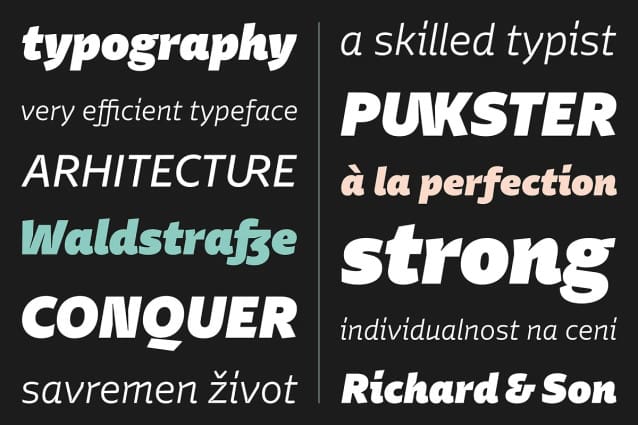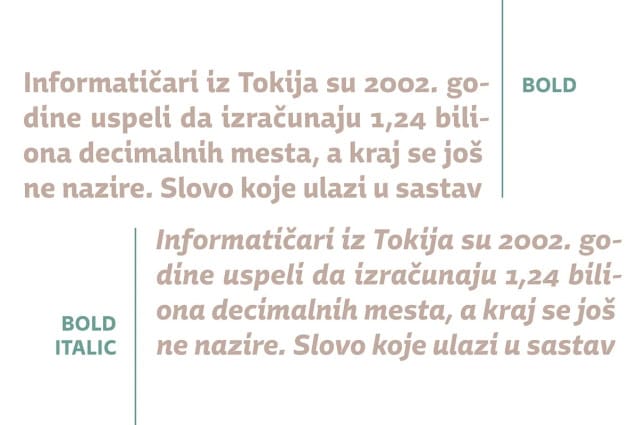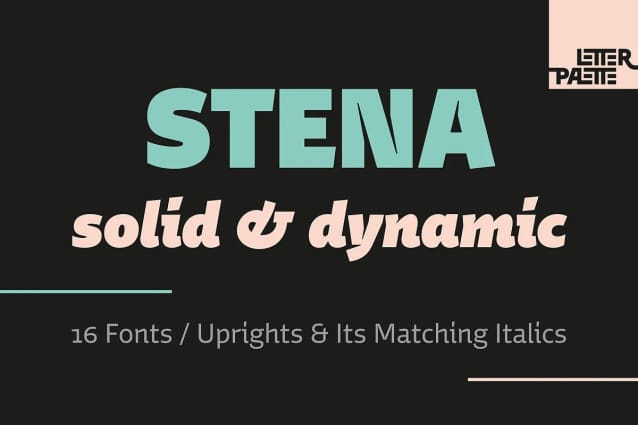
Stena Font Family
Stena Font Family, is a very functional sans serif typeface with calligraphic feel, especially designed for contemporary typography. This family features deep and sharp ink-traps as part of its design. Thanks to its proportions, solid and balanced forms, combination of straight and curve lines, high x-height and expressive ink-traps, Stena combines readability with a strong personality.
This dynamic typeface provides advanced typographical support with features such as ligatures, alternate characters, stylistics sets, fractions, etc. It also comes with a complete range of figure set options – oldstyle and lining figures, each in tabular and proportional widths.
This carefully designed family consists of 8 weights, ranging from Thin to Black, each with matching true italics. It comes with a set of 566 characters per weight, supporting over 40 different languages using the Latin alphabet. Stena is the ideal choice for editorial, branding, corporate identity, and more.